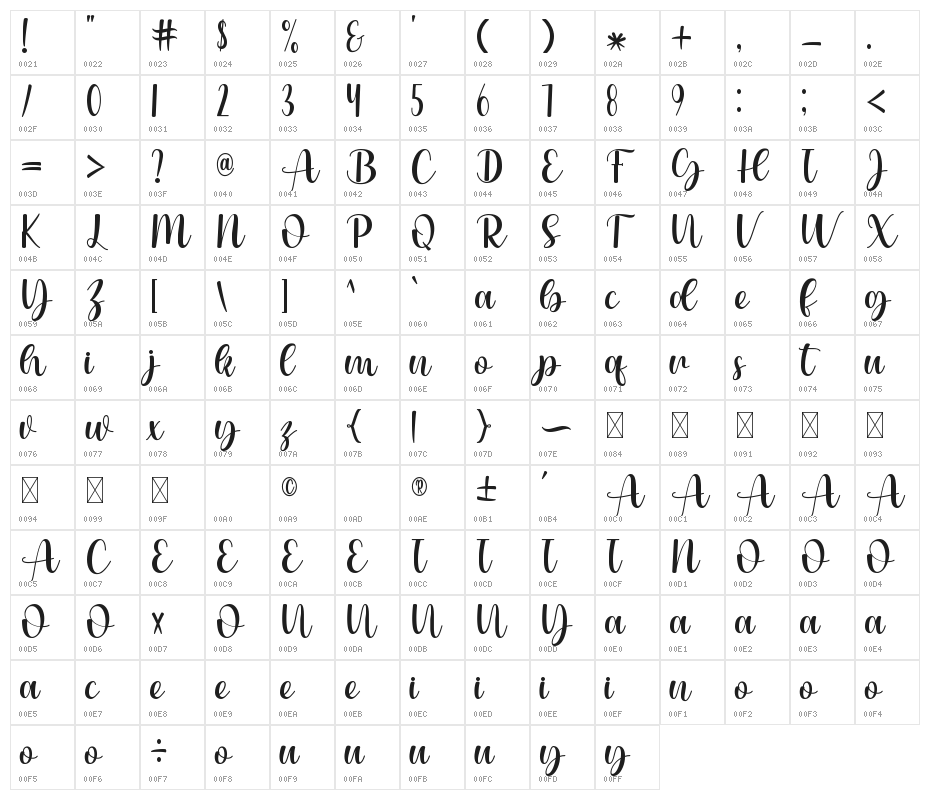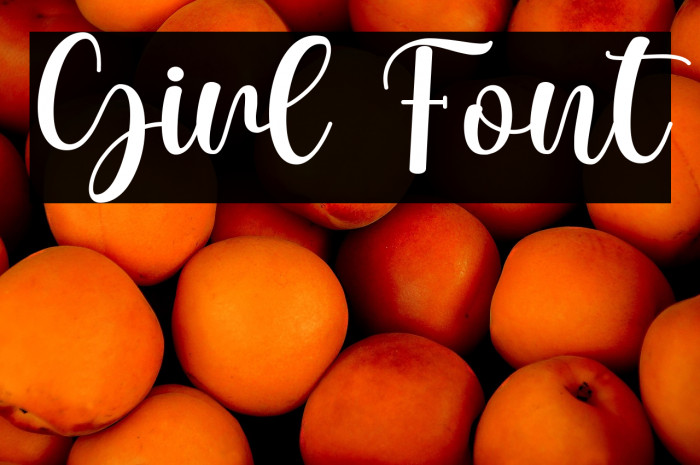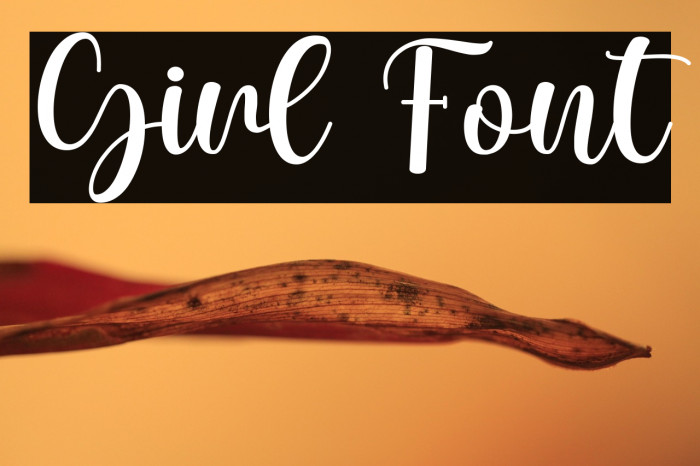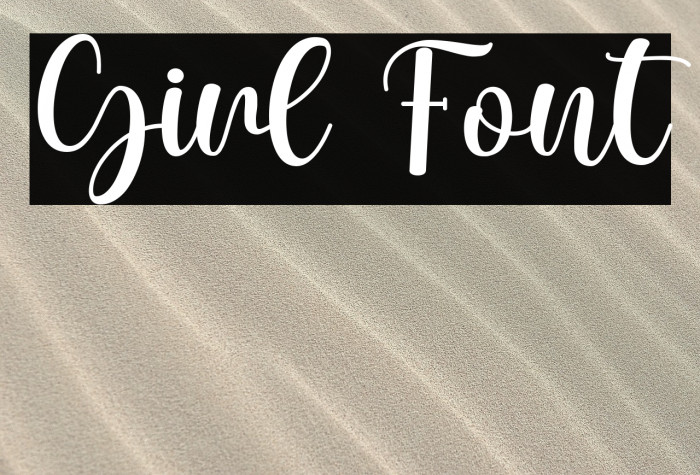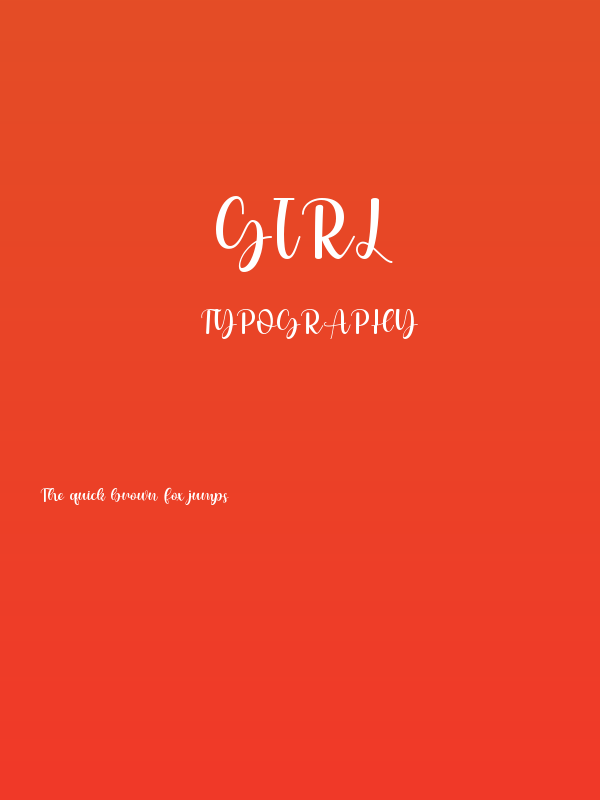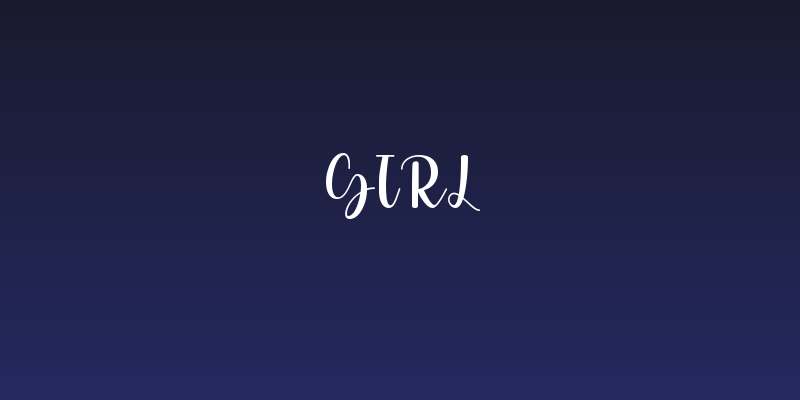
Girl Font
Girl Description
This font features a playful and elegant script style, characterized by its fluid, cursive strokes and a sense of movement. The uppercase letters are bold and expressive, with a slight slant that adds a dynamic feel. The lowercase letters maintain a consistent flow, enhancing readability while preserving the decorative nature. Numbers and special characters are designed to match the overall aesthetic, ensuring a cohesive look. The font's design is suitable for projects that require a touch of sophistication and creativity, making it ideal for invitations, branding, and artistic endeavors.
| Use Case | Headlines, Logos, Invitations |
| Proposed Projects | Ideal for invitations, branding, artistic projects, and creative designs. |